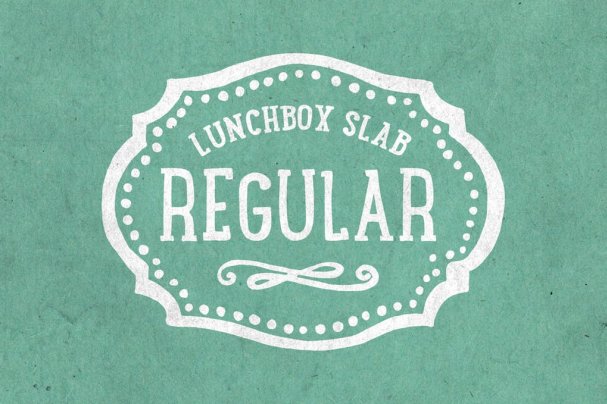
Lunchbox Slab Regular Font
Lunchbox Slab Regular Font font falls into the class of the handwriting fonts. This font that makes the content material appearance fashionable.
This remarkable font has come as a hazard in regular beauty however this fashionable fashion has held like pop corn font.